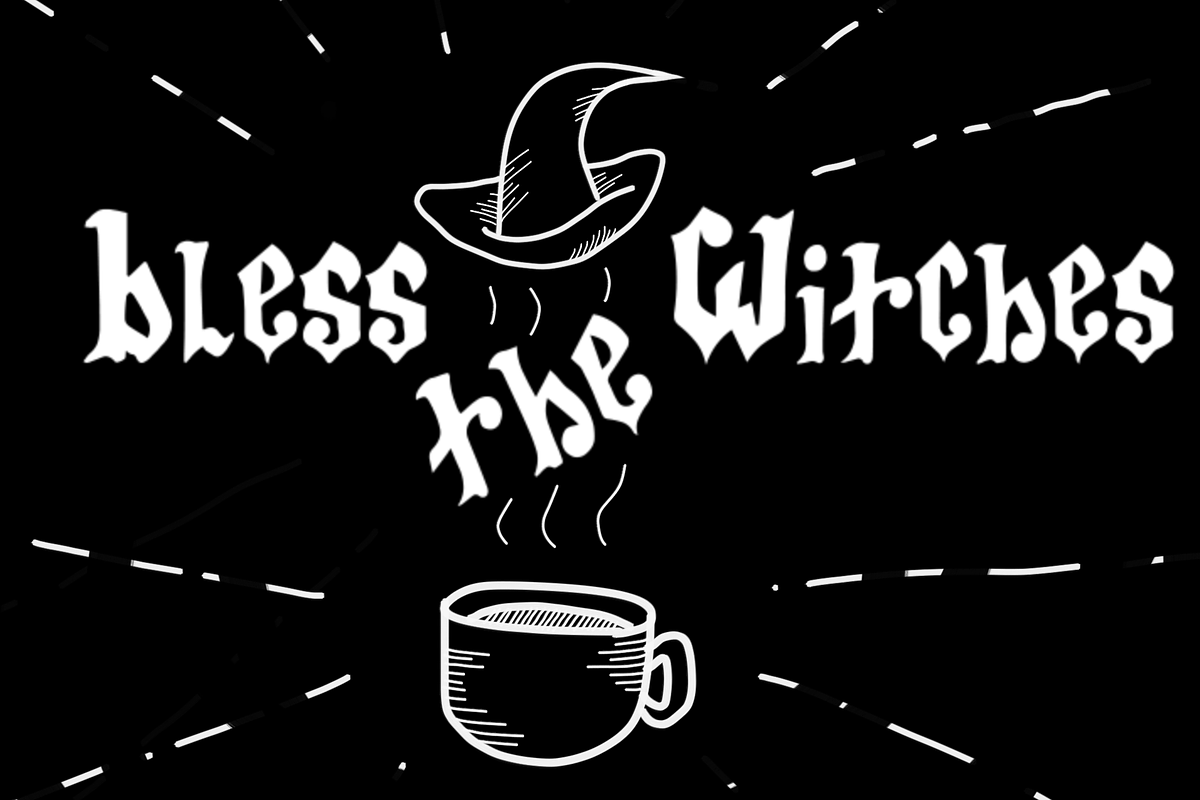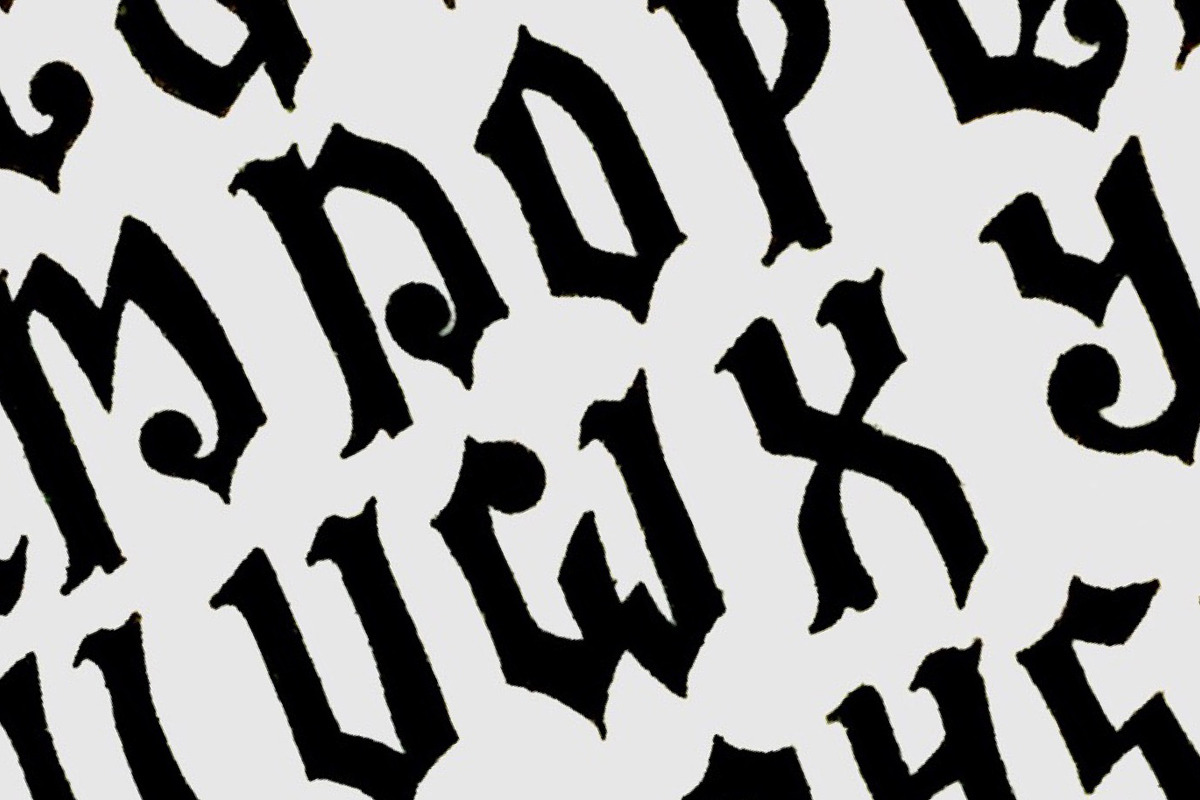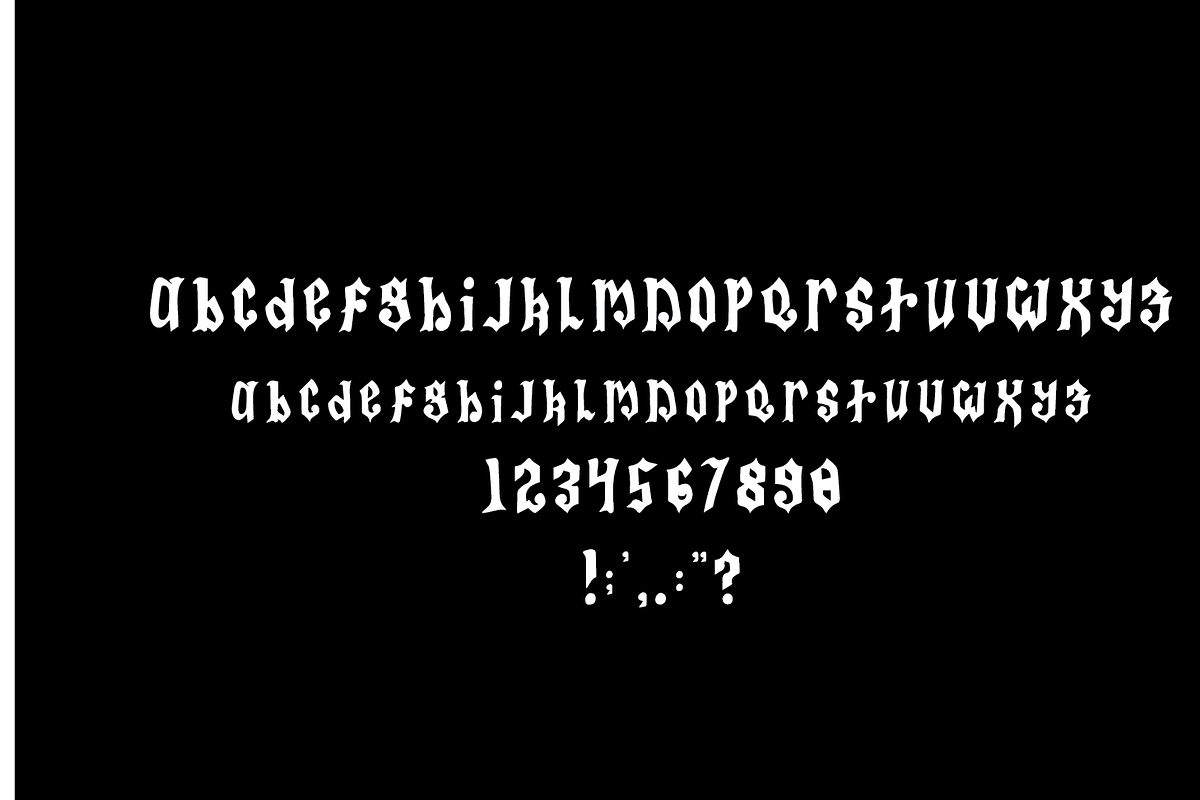
Bless the Witches: Gothic Typeface
A unique Blackletter-inspired typeface that compliments the Halloween and fantasy scene! Perfect for a unique project! Supports uppercase, lowercase, numbers and basic punctuation.
- Supports uppercase, lowercase, numbers and basic punctuation.